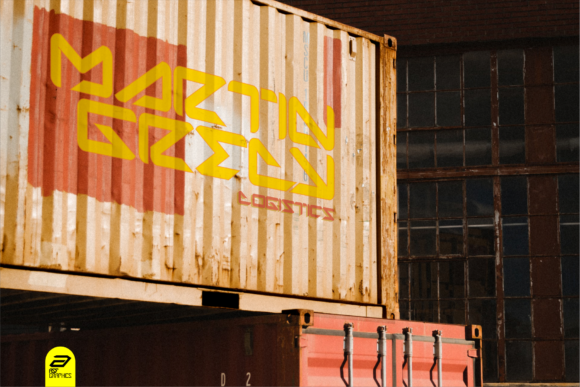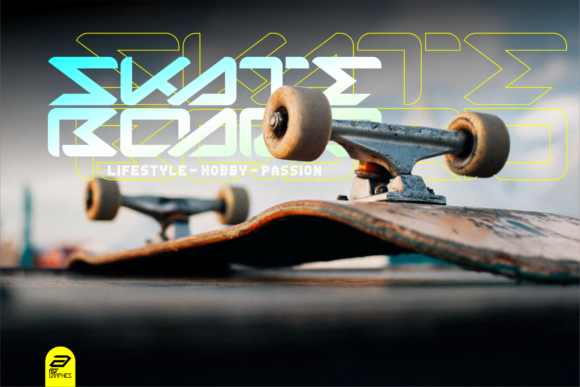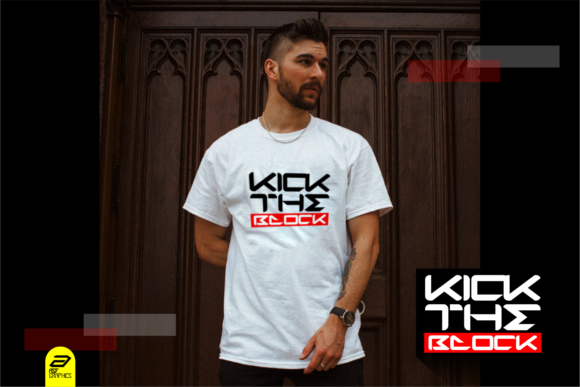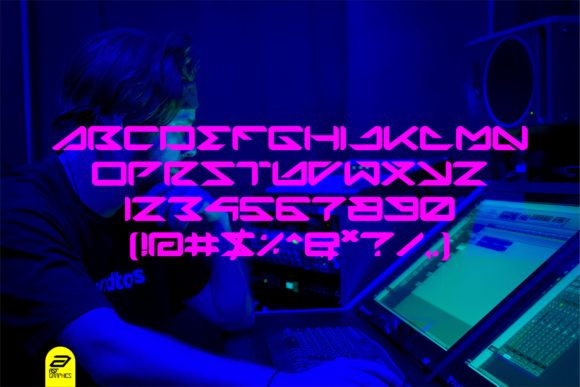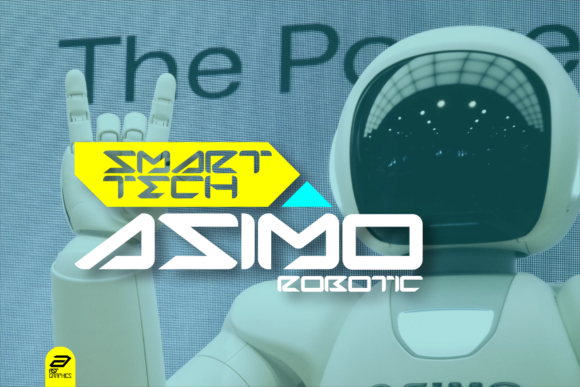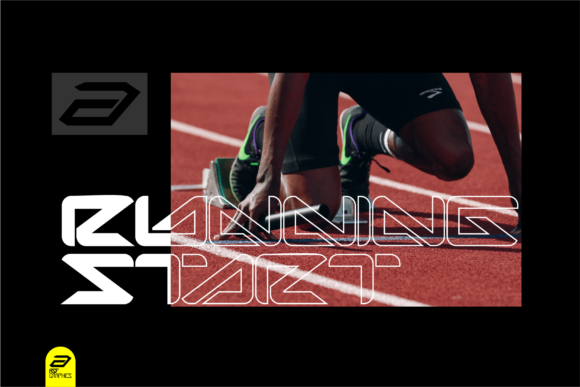
Introduction to Martin Grely Font
Have you ever stared at a blank canvas, waiting for inspiration to strike, only to be greeted by a sea of blank possibilities? For designers, this moment is all too familiar. But what if we told you that there’s a secret to unlocking that elusive creative spark? Enter the Martin Grely Font, a game-changing design resource that’s about to revolutionize your creative project.
With its cool, bold, and robotic display style, the Martin Grely Font is the perfect addition to any high-quality design. Whether you’re working on a web design, business card, or anything else that requires a unique touch, this versatile font is sure to deliver. And the best part? You can download it for free, giving you the freedom to experiment and push the boundaries of your creativity.
So why is the Martin Grely Font so valuable for designers? For starters, its transparent background makes it easy to layer and customize, giving you complete control over your design. Plus, its high-quality design ensures that your creative project will stand out from the crowd. Get ready to unleash your creativity with the Martin Grely Font – your next design project just got a whole lot more interesting!
Key Features of Martin Grely Font
- Unique, modern design with a transparent background for flexible use
- Perfect for digital projects, including web design, graphics, and more
- Includes a wide range of characters, including uppercase and lowercase letters, numbers, and punctuation
Honest Review: Martin Grely Font
I recently had the chance to work with the Martin Grely Font, and I’m excited to share my thoughts with you. As a designer, I’m always on the lookout for high-quality design resources to elevate my creative projects. The Martin Grely Font definitely delivers.
What works well is the font’s versatility. It’s a free download, which is a huge plus in my book. I was able to use it in a variety of projects, from digital designs to print materials, and it looked great every time. The font is also available in a range of weights and styles, making it easy to customize to fit my needs.
Some of the standout features include:
- Transparent background, making it easy to layer with other design elements
One potential limitation is that the font may not be suitable for all types of projects. It’s a bit on the modern side, so it may not be the best fit for more traditional or formal designs. ⚠️ However, for most creative projects, I think it’s a great choice.
Overall, I’m really impressed with the Martin Grely Font. It’s a great addition to my design resource library, and I’m excited to see how it continues to evolve.
Tips for Getting the Most Out of the Martin Grely Font
Use the Martin Grely Font in creative projects that require a high-quality, unique font. Take advantage of its transparent background to create visually appealing designs. Experiment with different font sizes and styles to add depth and interest to your work.
The Martin Grely Font is ideal for use in branding materials, social media graphics, and advertising campaigns. Its high-quality design and transparent background make it a versatile choice for a variety of creative projects.